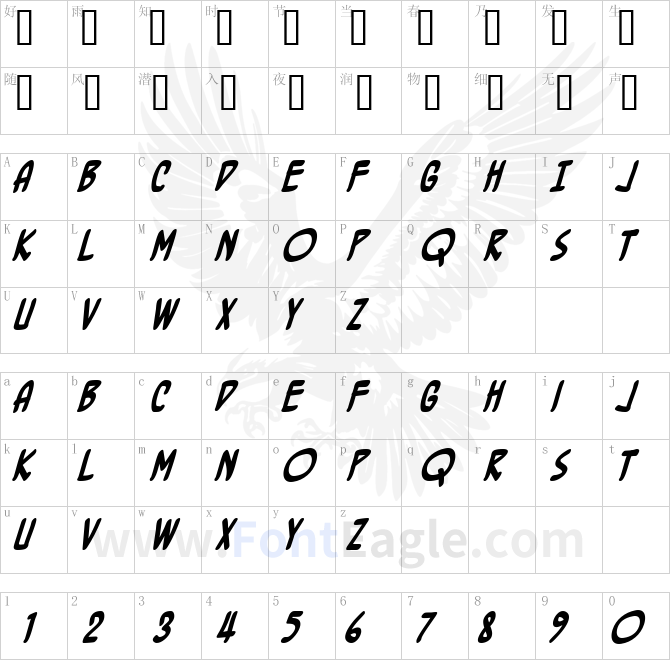
- Font name:BottleRocket BB
- Font Subfamily ID:Stringbean BB
- Font Full Name:BottleRocket BB Bold
- Font Version:Macromedia Fontographer 4.1 2/16/04
- Postscript:BottleRocketBBBold